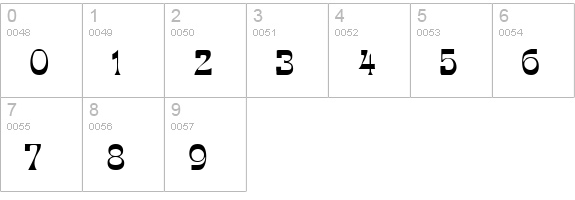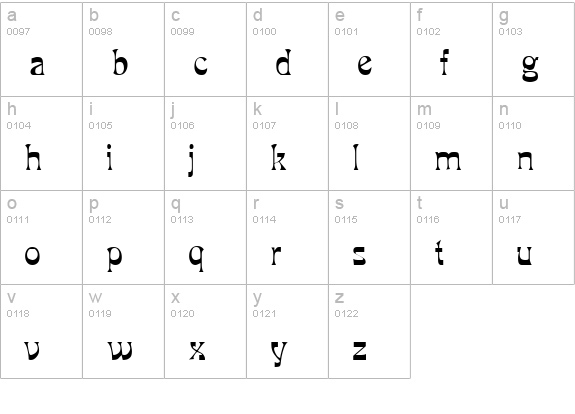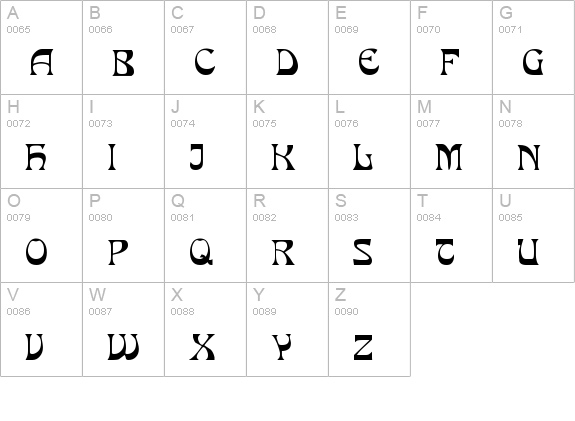
Madeira Font Details
Madeira is a stunning, elegant font that exudes sophistication and style. With its delicate curves and sharp edges, this typeface is perfect for adding a touch of class to any project. Whether you're designing a wedding invitation, creating a logo for a luxury brand, or crafting a sleek magazine layout, Madeira is sure to impress. The best part? Madeira is completely free to download at FontsMarket.com. That's right, you can elevate your designs with this exceptional font without spending a dime. Don't miss out on this opportunity to enhance your work with the timeless beauty of Madeira. Download it today and take your designs to the next level.